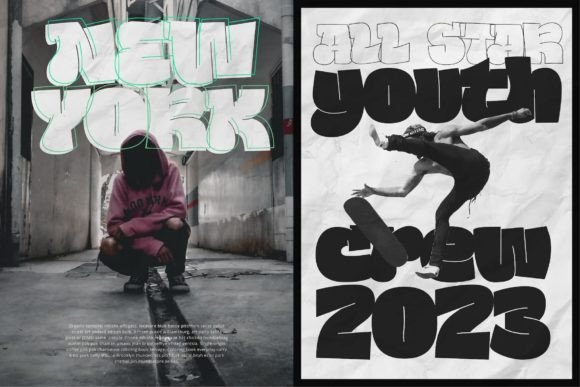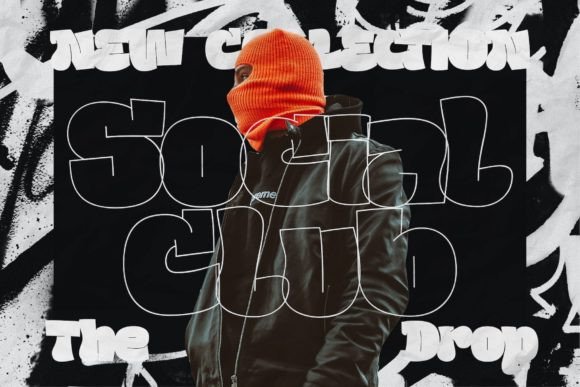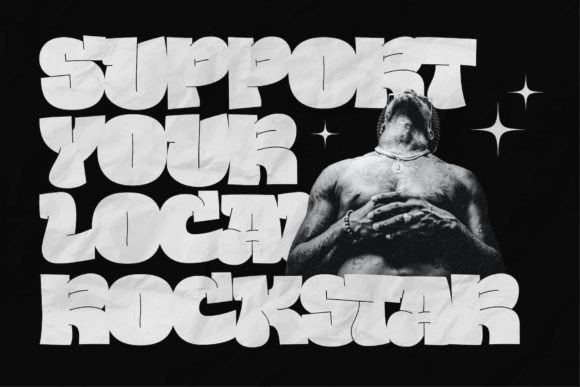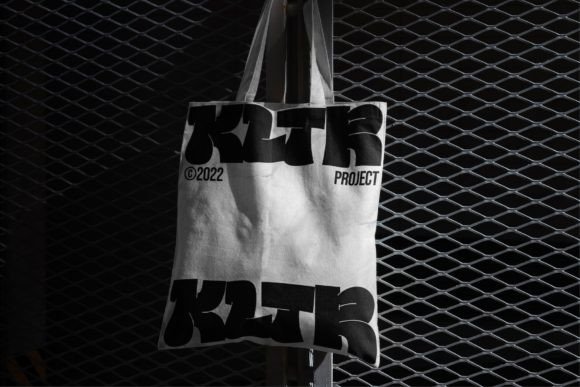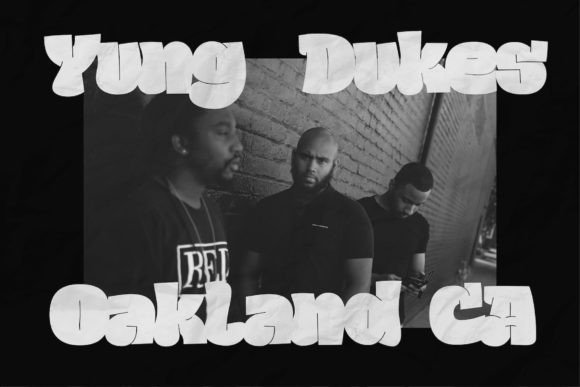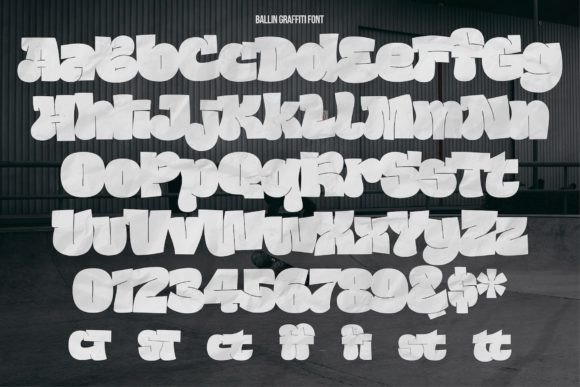
The Perfect Blend of Street Style and Design
You’ve spent hours brainstorming the perfect concept, poured your heart into crafting the design, and finally, it’s time to bring it to life. But, there’s something missing – that authentic touch that screams ‘street style.’ You know exactly what we’re talking about. The moment when your design transcends from mere aesthetics to a true reflection of the urban culture that inspires you.
Introducing Ballin Font, a throwie style graffiti font that embodies the raw energy and rebellious spirit of the streets. With its super tight spacing and overlapping characters, this font is the real deal – straight from the tags under a bridge or on a train car. Whether you’re working on apparel projects, band merch, or sports content, Ballin Font is the perfect addition to elevate your creative work.
For designers, Ballin Font offers an unparalleled opportunity to infuse their designs with the authentic charm of street culture. Its unique aesthetic is sure to captivate audiences and leave a lasting impression, making it an invaluable asset in any creative project.
Key Features of Ballin Font
- Unique Characteristics: The font features a bold, graffiti-inspired design with rounded edges and a dynamic feel, perfect for creating eye-catching headlines and titles.
Ballin Font Review
Overall, I found the Ballin Font to be a decent addition to any designer’s toolkit. It’s a display font that screams luxury and sophistication, perfect for high-end branding or marketing materials.
Here’s what works well:
- ✨ Unique and eye-catching design: The Ballin Font has a distinct, futuristic feel that’s sure to grab attention.
- ✨ Wide range of applications: From logos to product packaging, this font can add a touch of elegance to any project.
- ✨ High-quality rendering: The font is well-designed and rendered, making it a pleasure to work with.
However, there are some limitations:
- ⚠️ Limited character set: The Ballin Font is missing some essential characters, including accented letters and punctuation marks.
- ⚠️ Not ideal for body text: Due to its large x-height and condensed design, the font can be difficult to read in longer blocks of text.
Overall, I’d recommend the Ballin Font for designers who need a statement font for specific projects. While it may not be suitable for everyday use, it’s a great addition to any designer’s toolkit.
Getting the Most Out of Ballin Font
For best results, use Ballin Font in bold or italic styles to emphasize headings and titles. You can also use it in combination with other fonts to create a unique visual identity. Experiment with different font sizes and colors to achieve the desired effect.
Ballin Font is ideal for creative projects such as:
– Logos and branding
– Infographics
– Posters and flyers
– Business cards and resumes